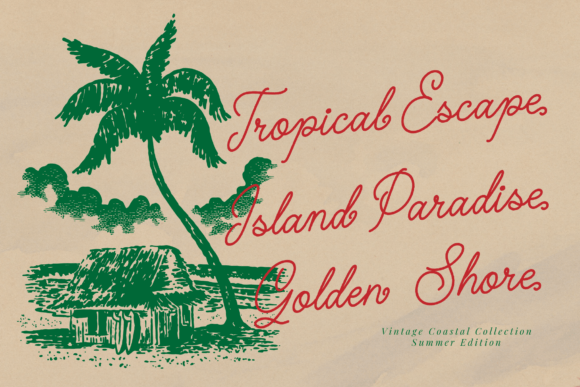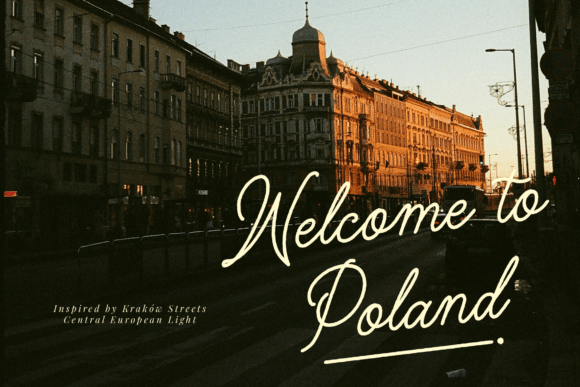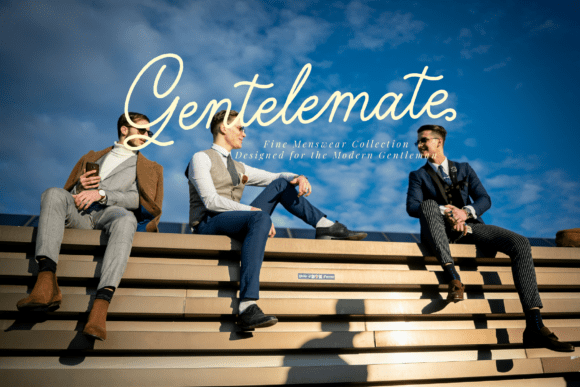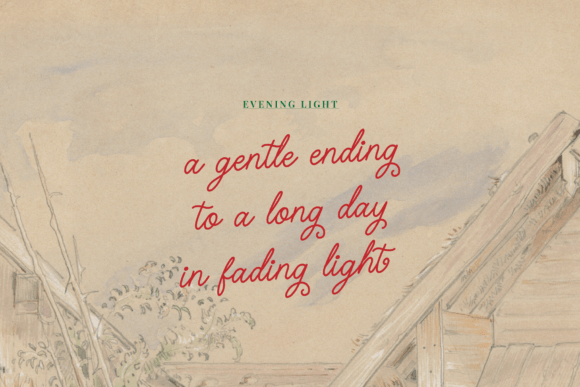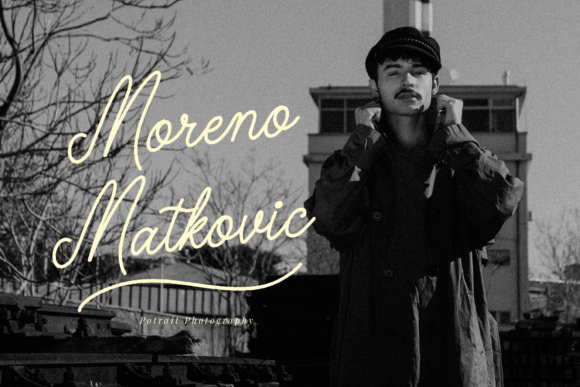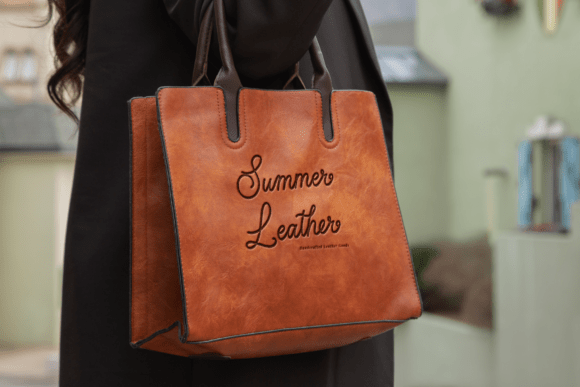
Introduction to Holany Calira Font
Holany Calira: Monoline Vintage Script Step back in time with Holany Calira, a monoline vintage script that captures the effortless elegance of mid-century handwriting.
With its consistent line weight and graceful, flowing loops, this font brings a sense of nostalgia and class to any project It is perfectly suited for retro-inspired logos, wedding stationery, artisanal product packaging, and classic editorial headers.